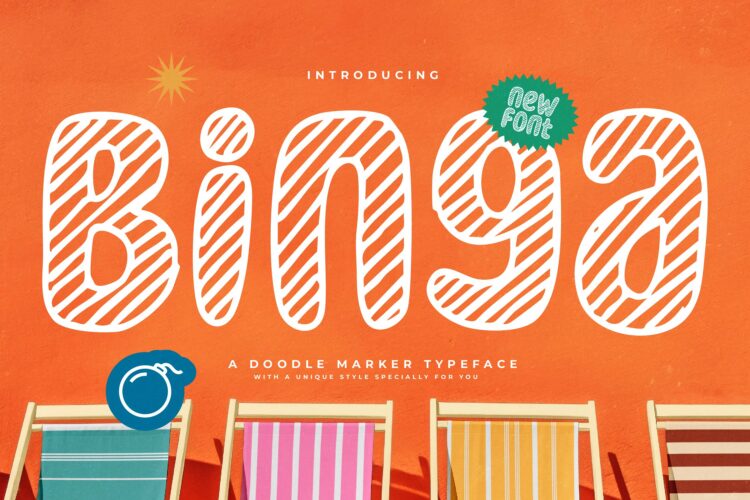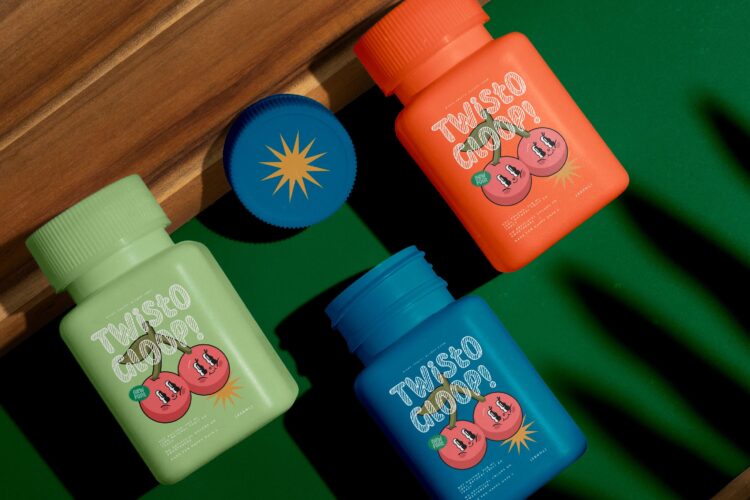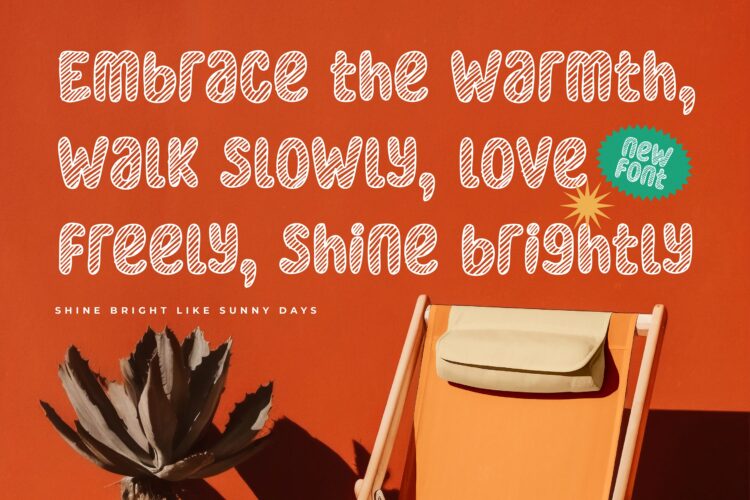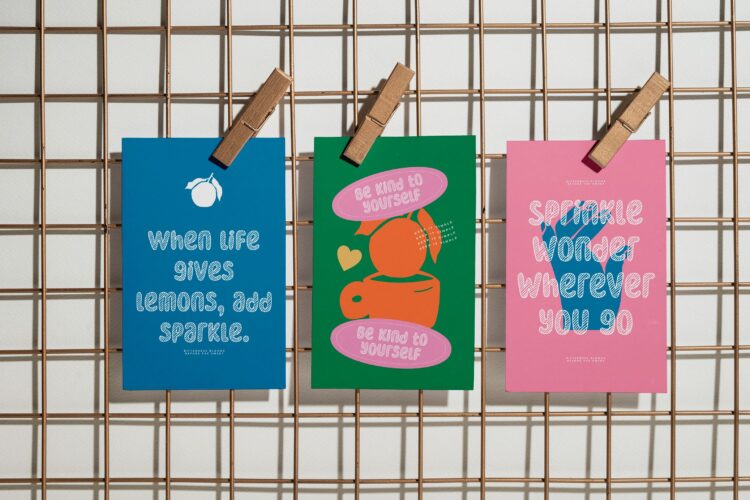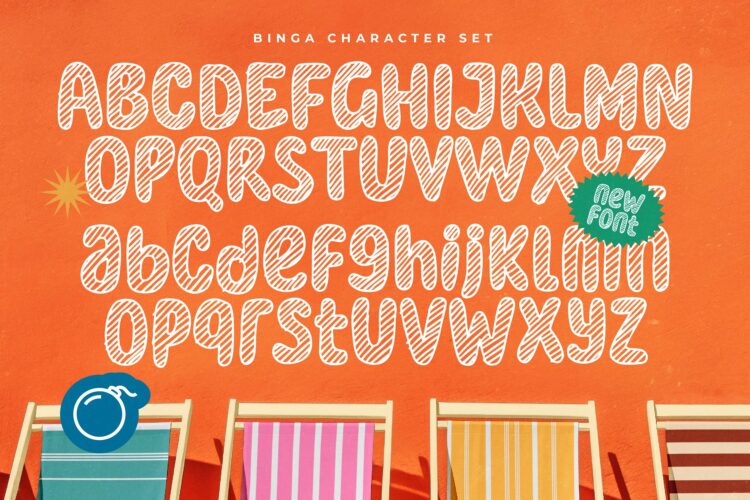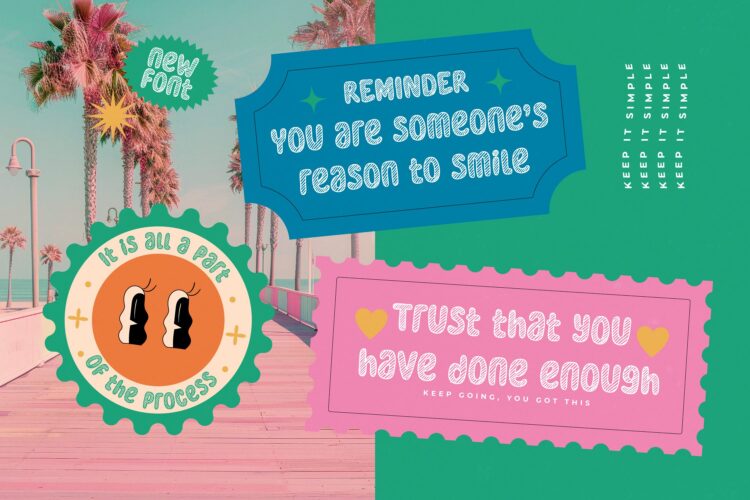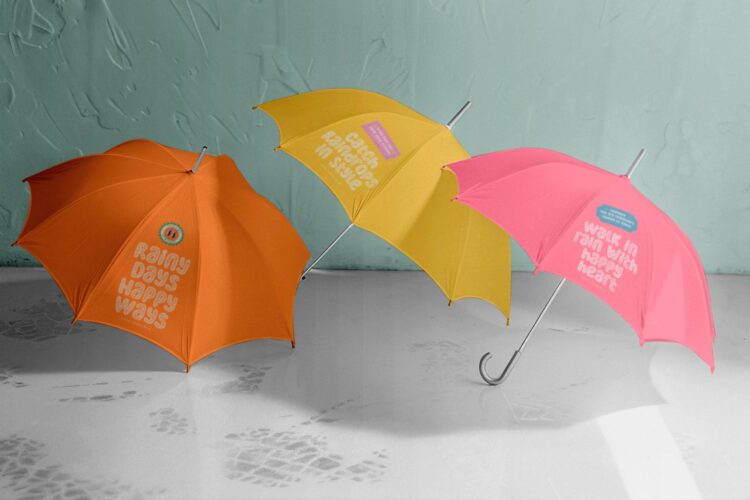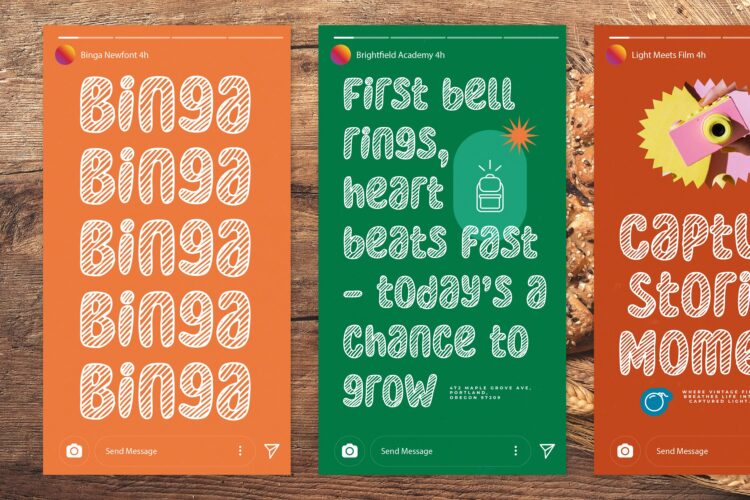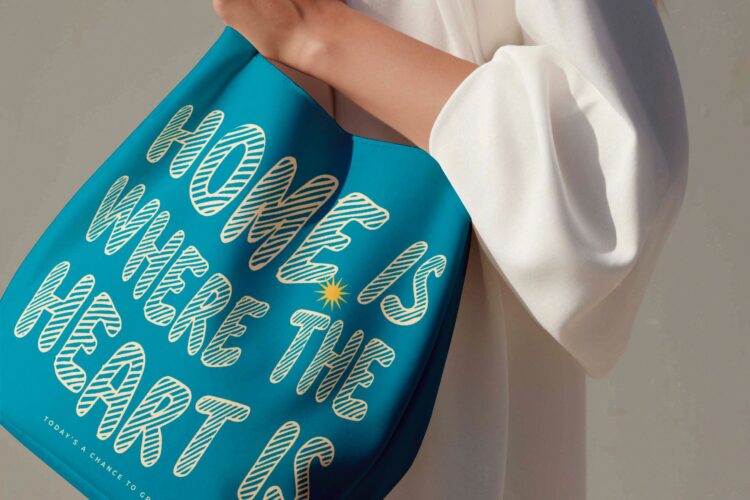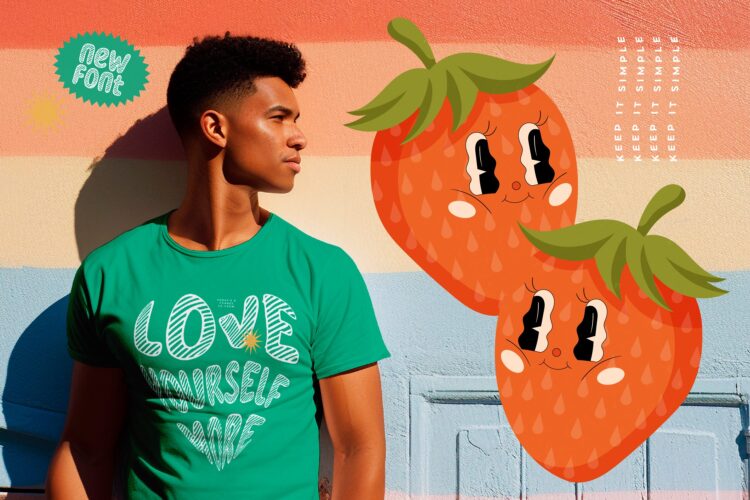
Binga
Binga doodle font is a unique, modern geometric font with a unique, elegant, modern and geometric style. It is a display font perfect for branding projects, logos, social media posts, product packaging, labels, etc.